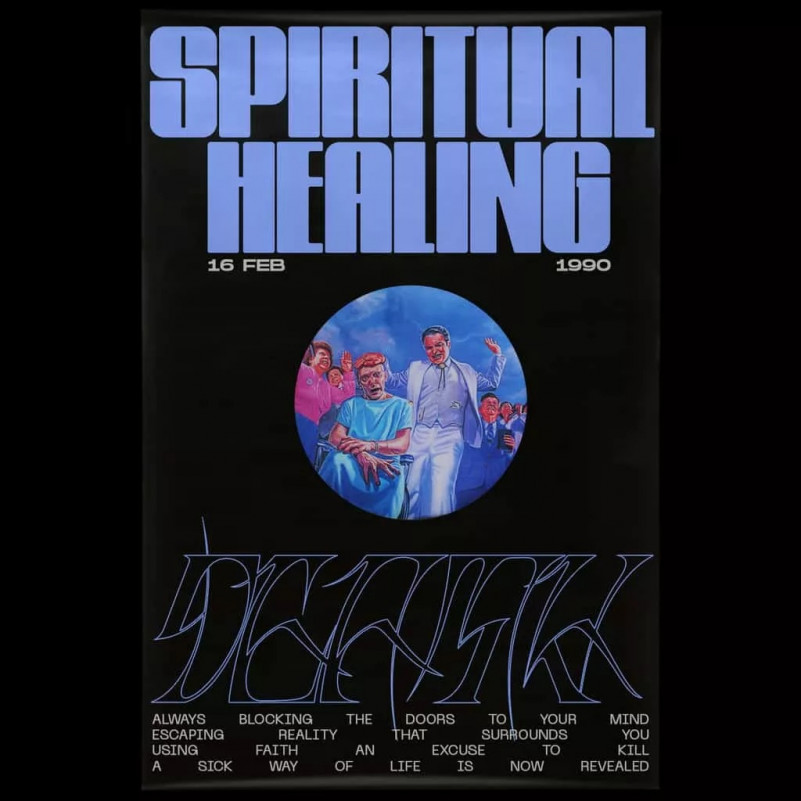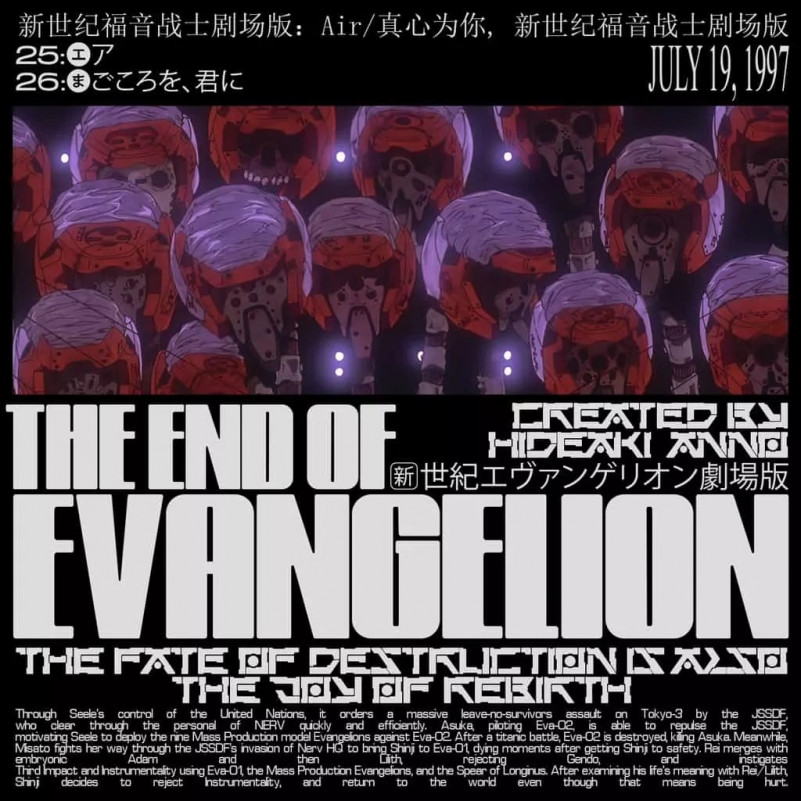
Evangelion Sans Serif Font is a sans serif display typeface inspired by the works of Wim Crouwel and the anime series Evangelion. Working perfectly for bold and standout headlines, use it to impact every viewer with its presence.
| Designer Name: | Domenico Barreto |